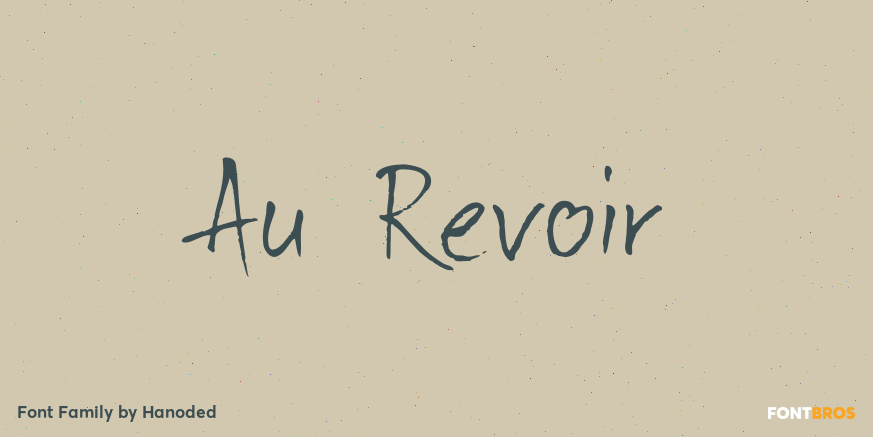
Au Revoir
About Au Revoir
Au Revoir – saying goodbye is one of the hardest things in life, but in a sense it is also beautiful: there is a promise of seeing each other again, as ?Au revoir? literally means: \’to the next time we see one another?. Au Revoir font is slightly cursive,…